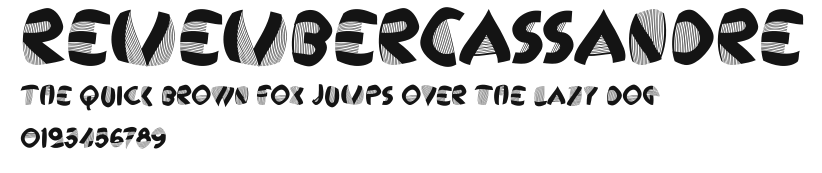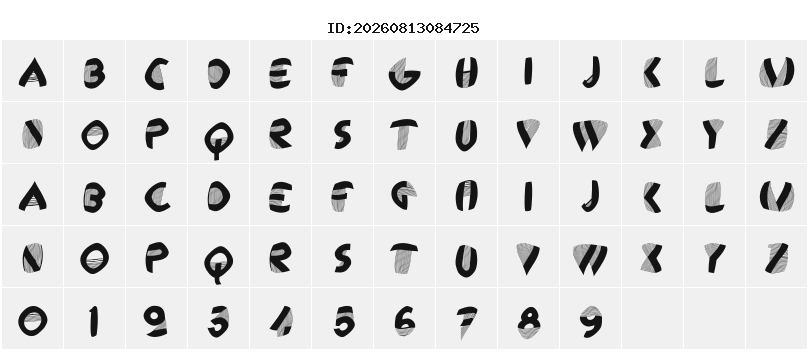
RememberCassandre Preview
• Font Name: RememberCassandre
• Full Font Name: RememberCassandre
About RememberCassandre.ttf
RememberCassandre.ttf is a modern, elegant sans-serif font designed for ultimate readability and visual harmony. Perfect for branding, headlines, web design, and print materials.